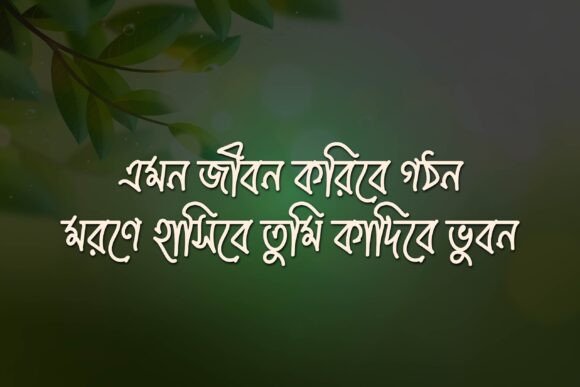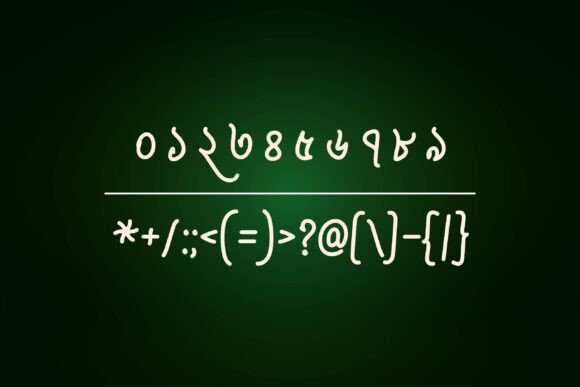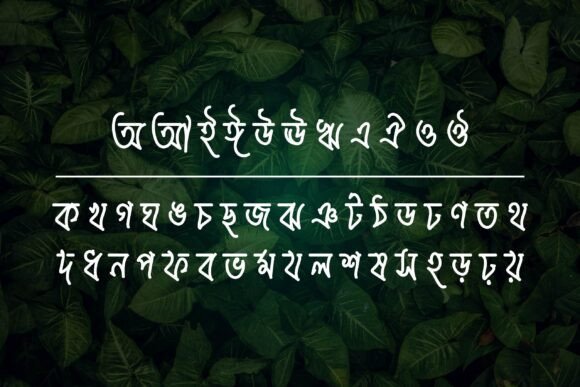
Introduction to Kolmilota Font
Introducing Kolmilota: a beautifully crafted Stylish Script and Handwritten Bangla Font embodying Calligraphy Quality.
Perfect for Movie titles, Game names, T-shirt designs, and even longer paragraphs, Kolmilota combines usability with artistic flair With an impressive 423 glyphs and 196 characters, this versatile font captures the elegance of handwritten script while offering functionality across diverse design needs.